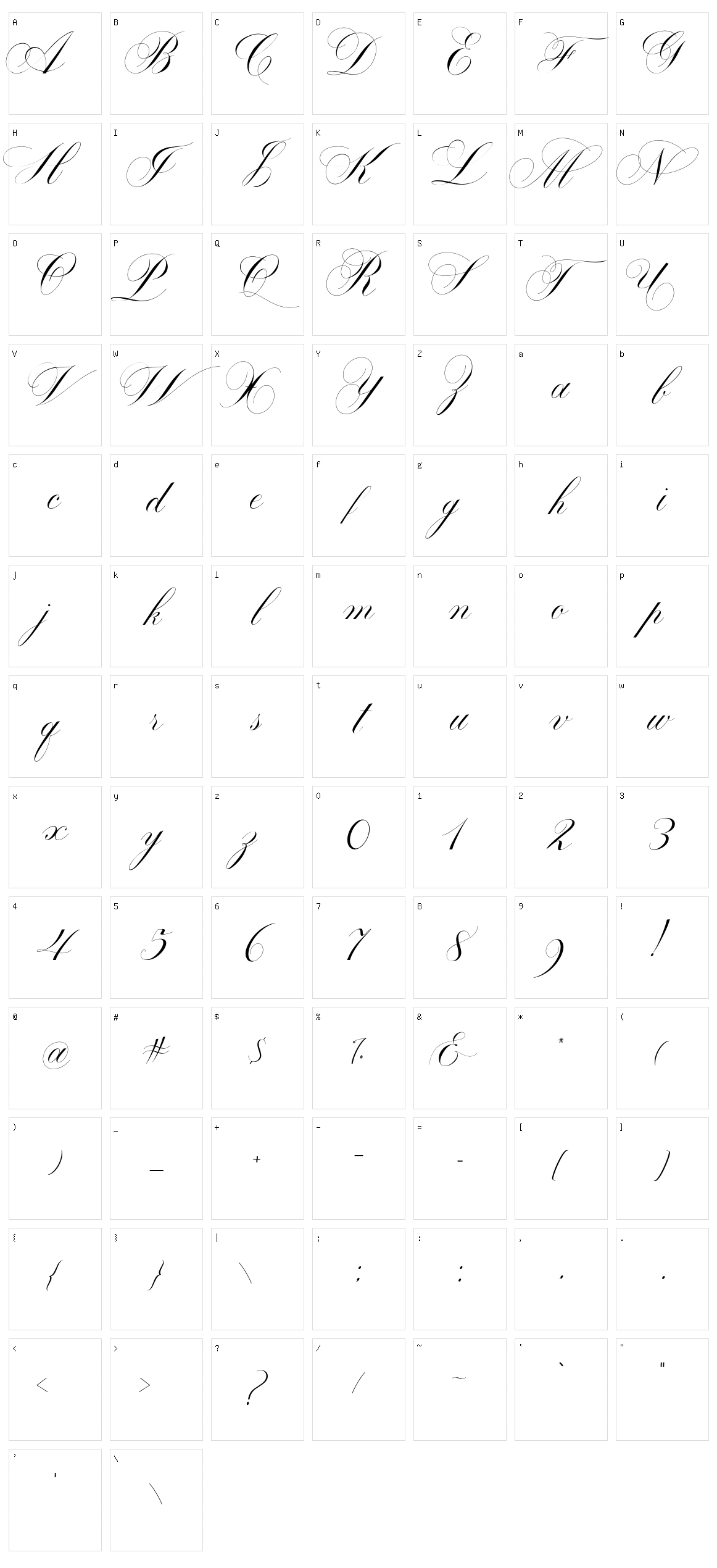
The free font Batta Quath is carefully designed by belovestudio, showcasing a thoughtful balance of creativity and usability and falls under the Script font style. When you download the ZIP file, it contains only 31.5 KB of font files, making it lightweight and quick to download. Please review the license details below to understand permitted usage and distribution rights. If license information is not available, we recommend using this font for personal projects only or contacting the author directly for commercial usage permissions.